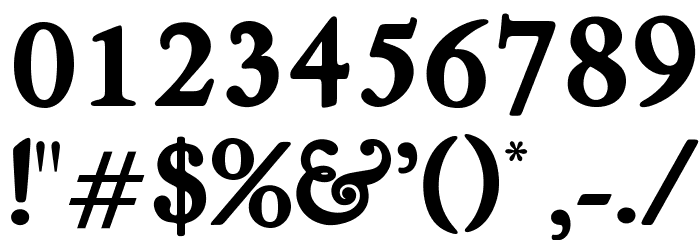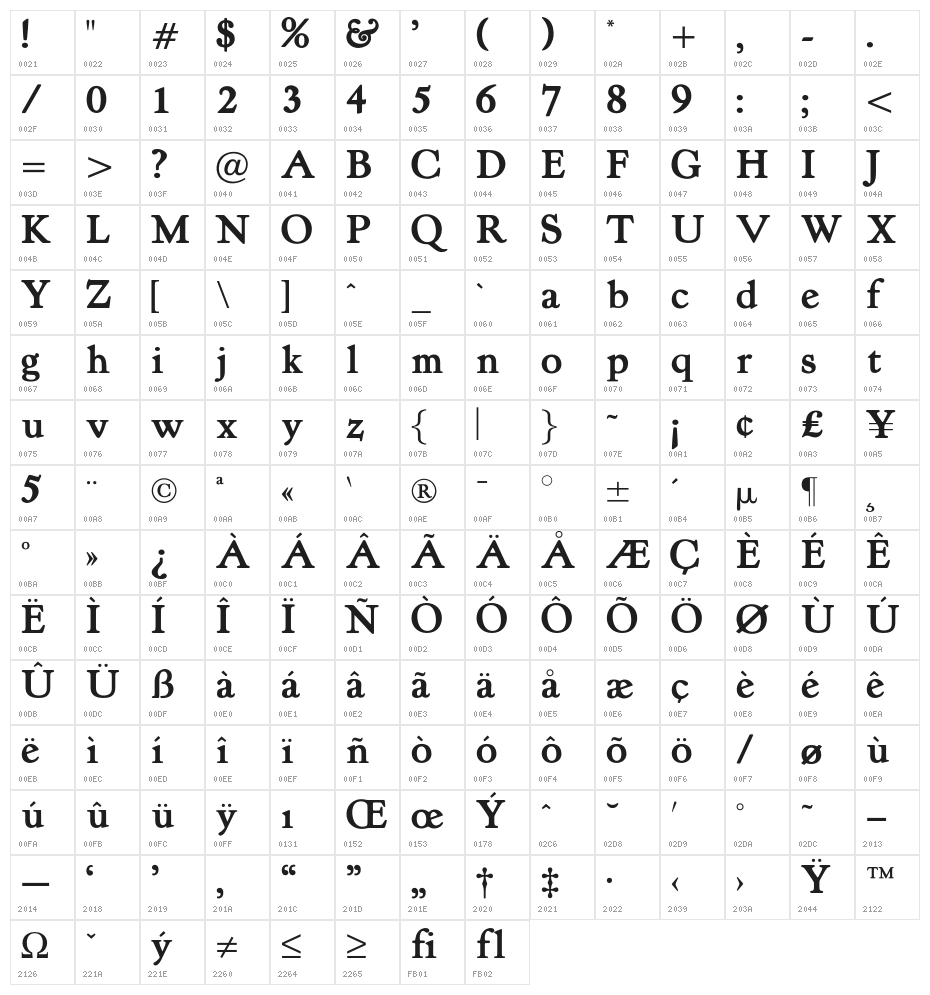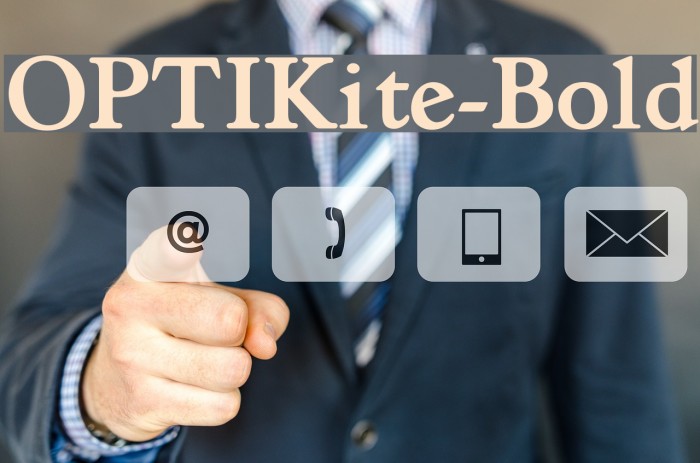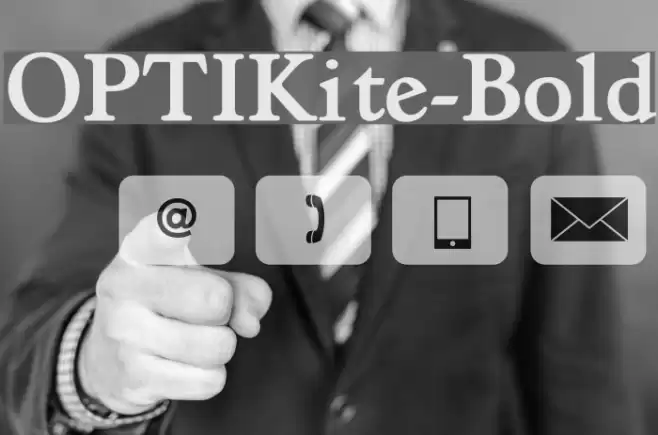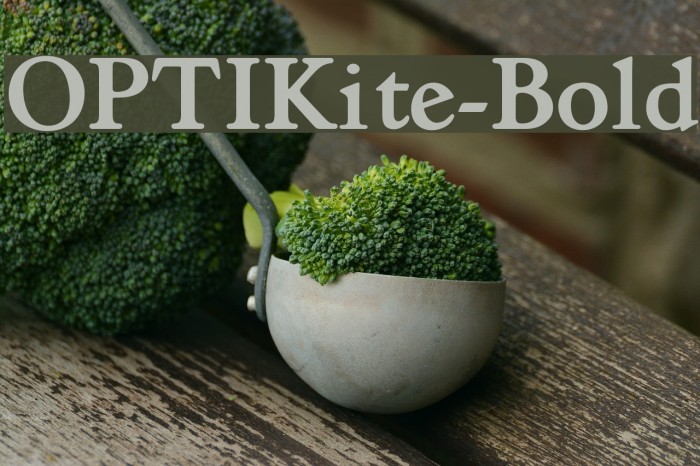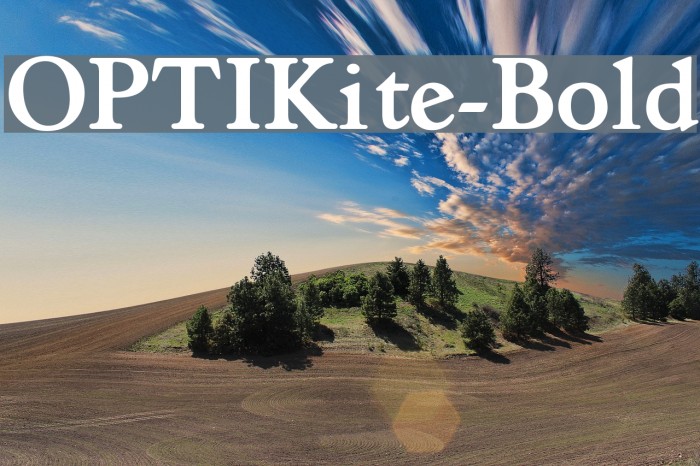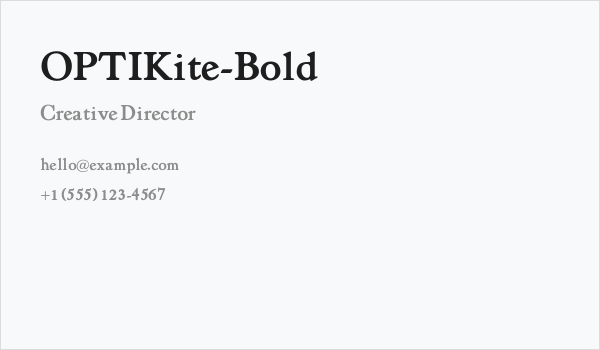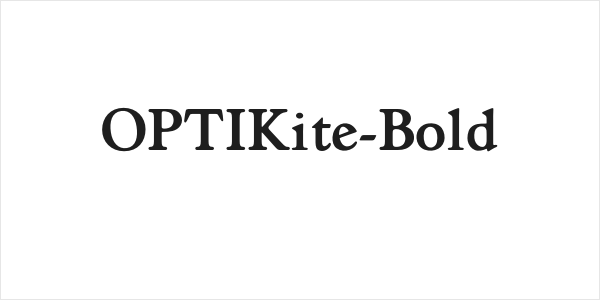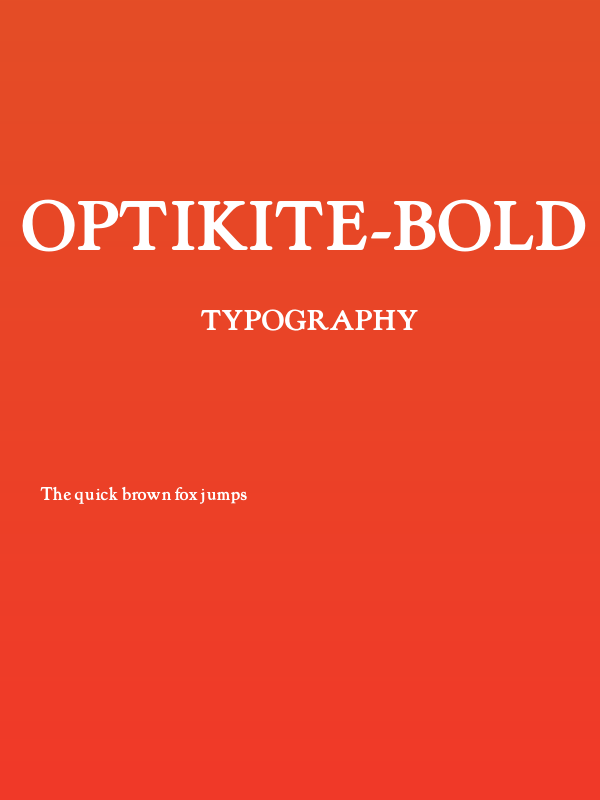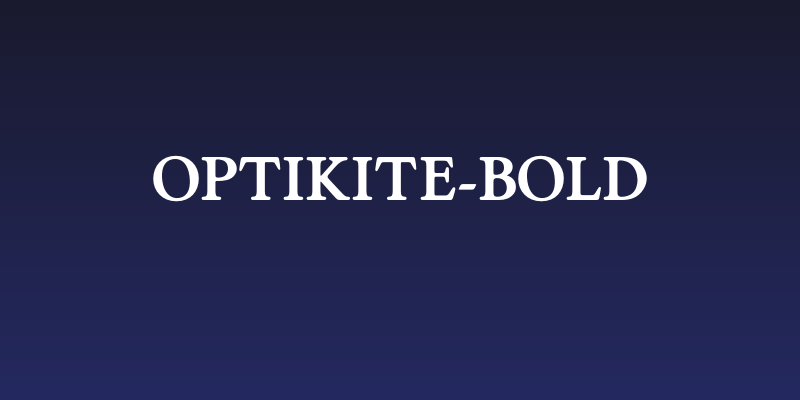
OPTIKite-Bold Font
OPTIKite-Bold Description
This font features a bold and commanding presence with its strong serif design. The characters are well-defined with a classic serif style, providing a sense of tradition and reliability. The uppercase letters are robust and slightly condensed, while the lowercase letters maintain a consistent weight, offering a harmonious balance. The numerals are clear and legible, making them suitable for various applications. Special characters are designed with the same attention to detail, ensuring consistency across the font. The overall appearance is both professional and versatile, making it suitable for a wide range of design projects.